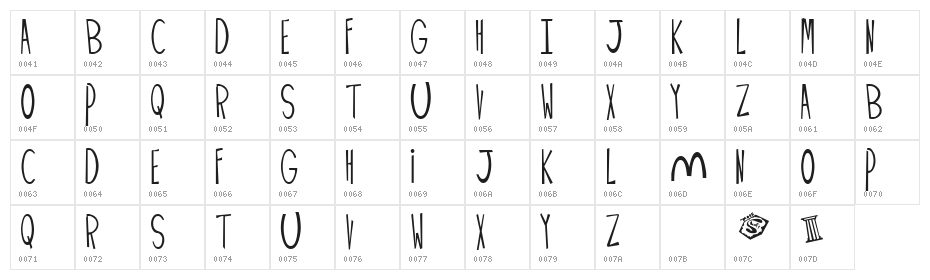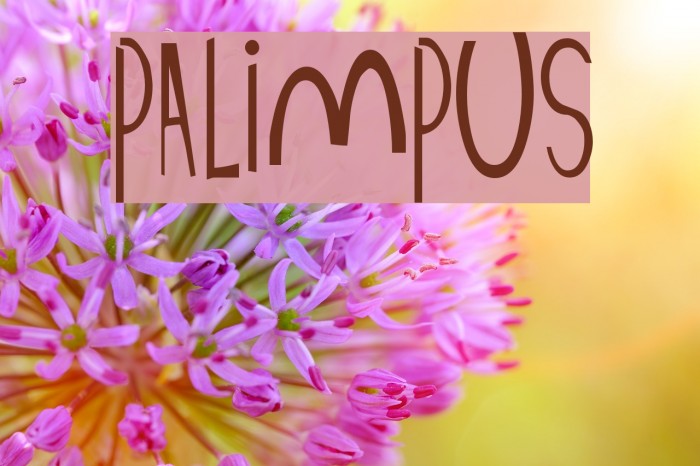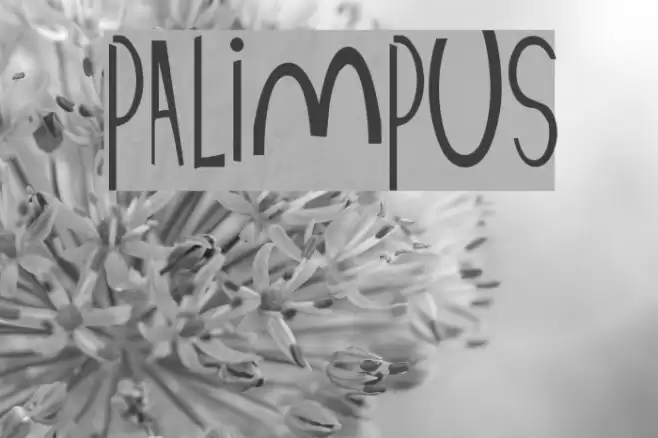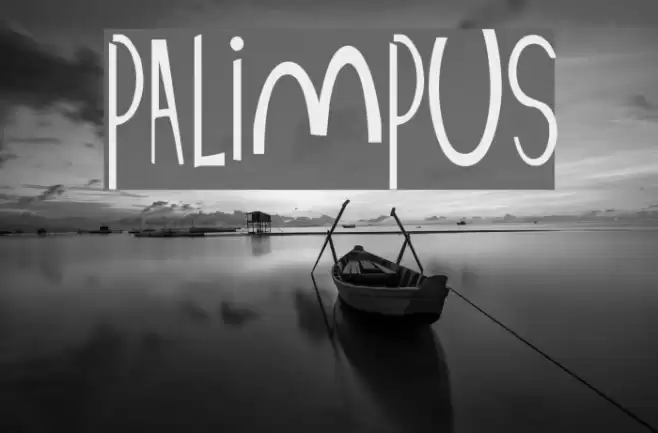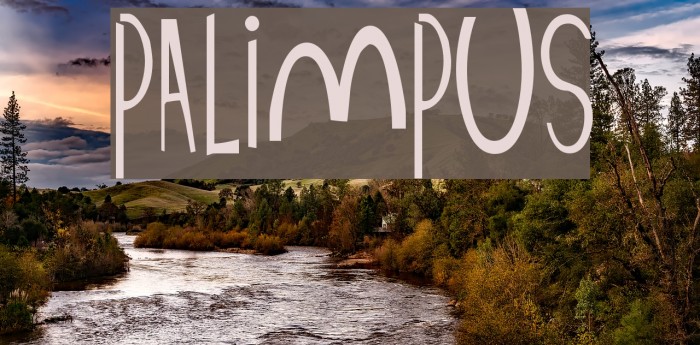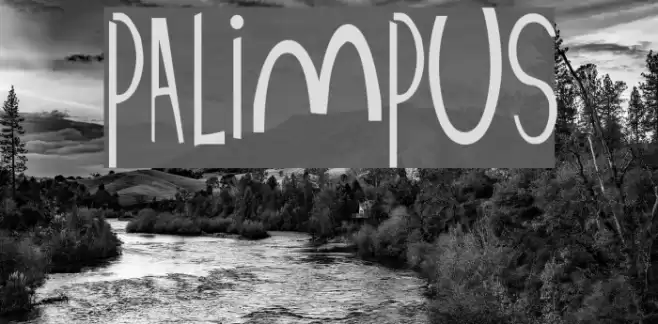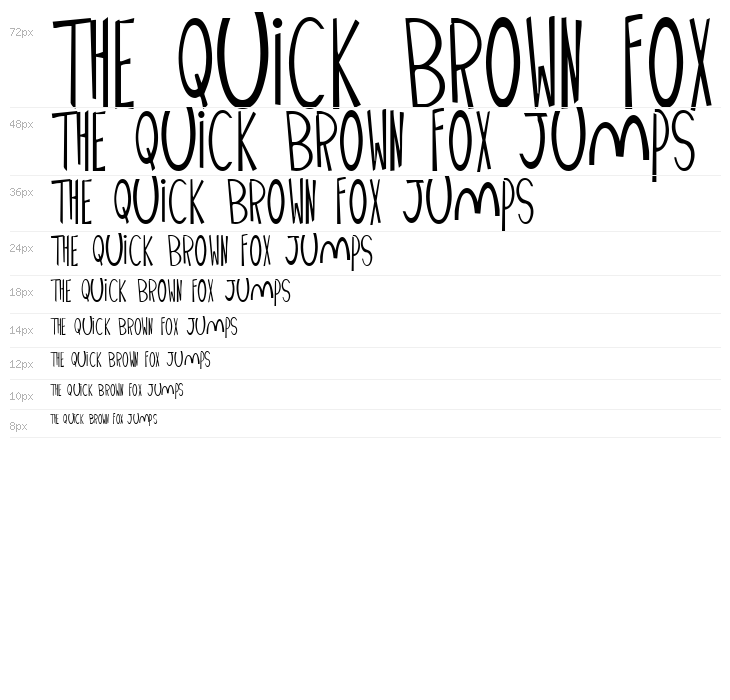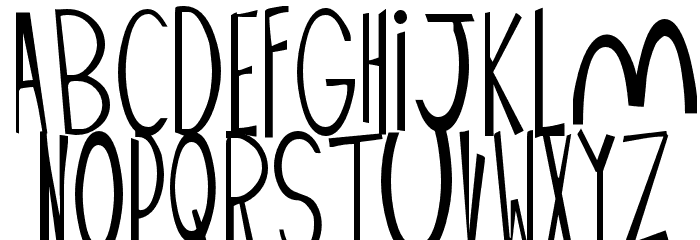
Palimpus Font
Palimpus Description
This font exhibits a playful and quirky style with its tall, narrow letterforms and uneven strokes. The uppercase letters are particularly elongated, giving a whimsical and artistic feel. The lowercase letters maintain a similar style, with some characters having unique, exaggerated features. The overall appearance is dynamic and lively, making it suitable for creative and informal designs. The font lacks traditional symmetry, adding to its charm and distinctiveness. It does not include numerals or special characters, focusing solely on the alphabet.
| Overall Style | Whimsical |
| Use Case | Headlines, Artistic designs |
| Proposed Projects | Ideal for children's book covers, playful posters, artistic branding, and creative invitations. |